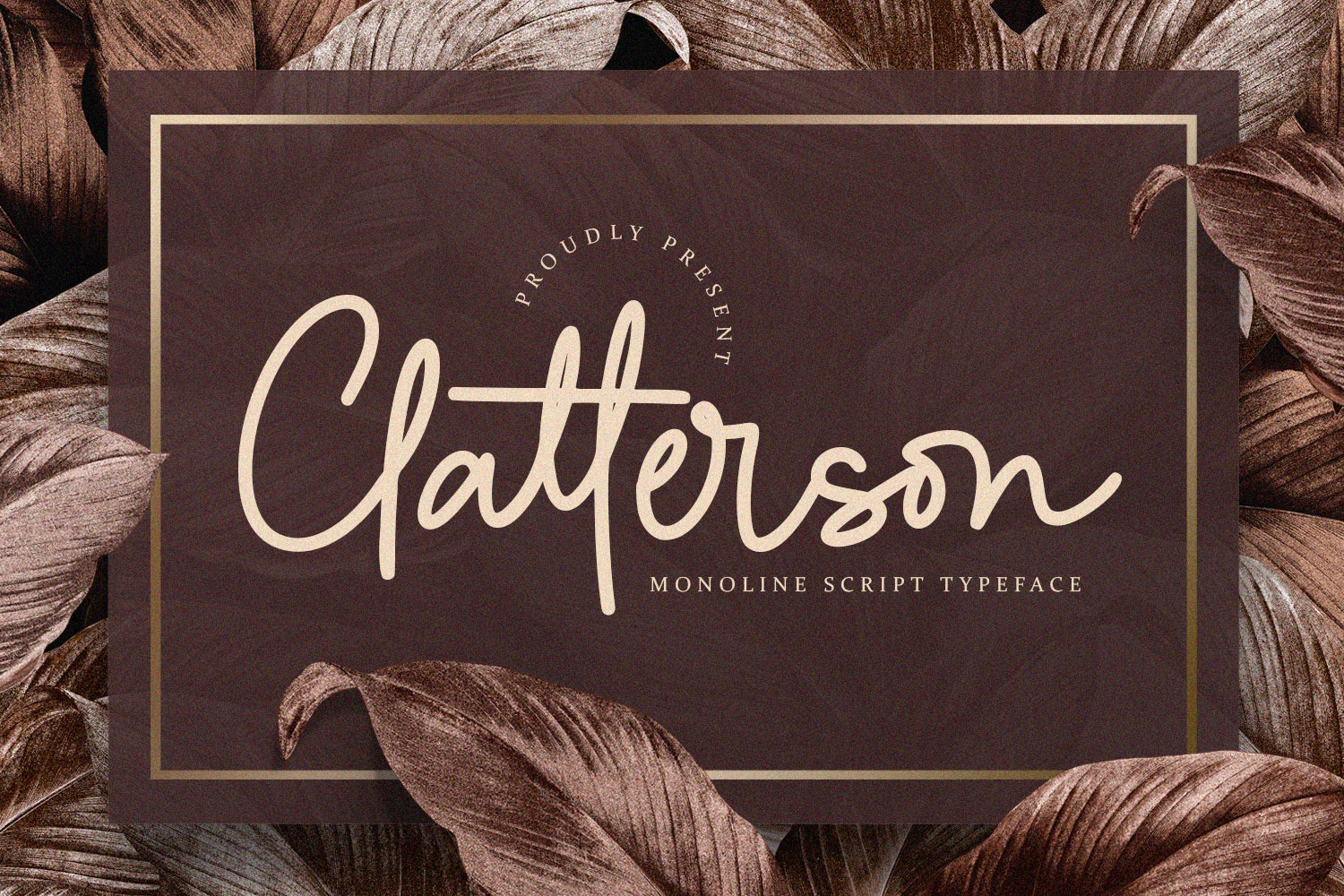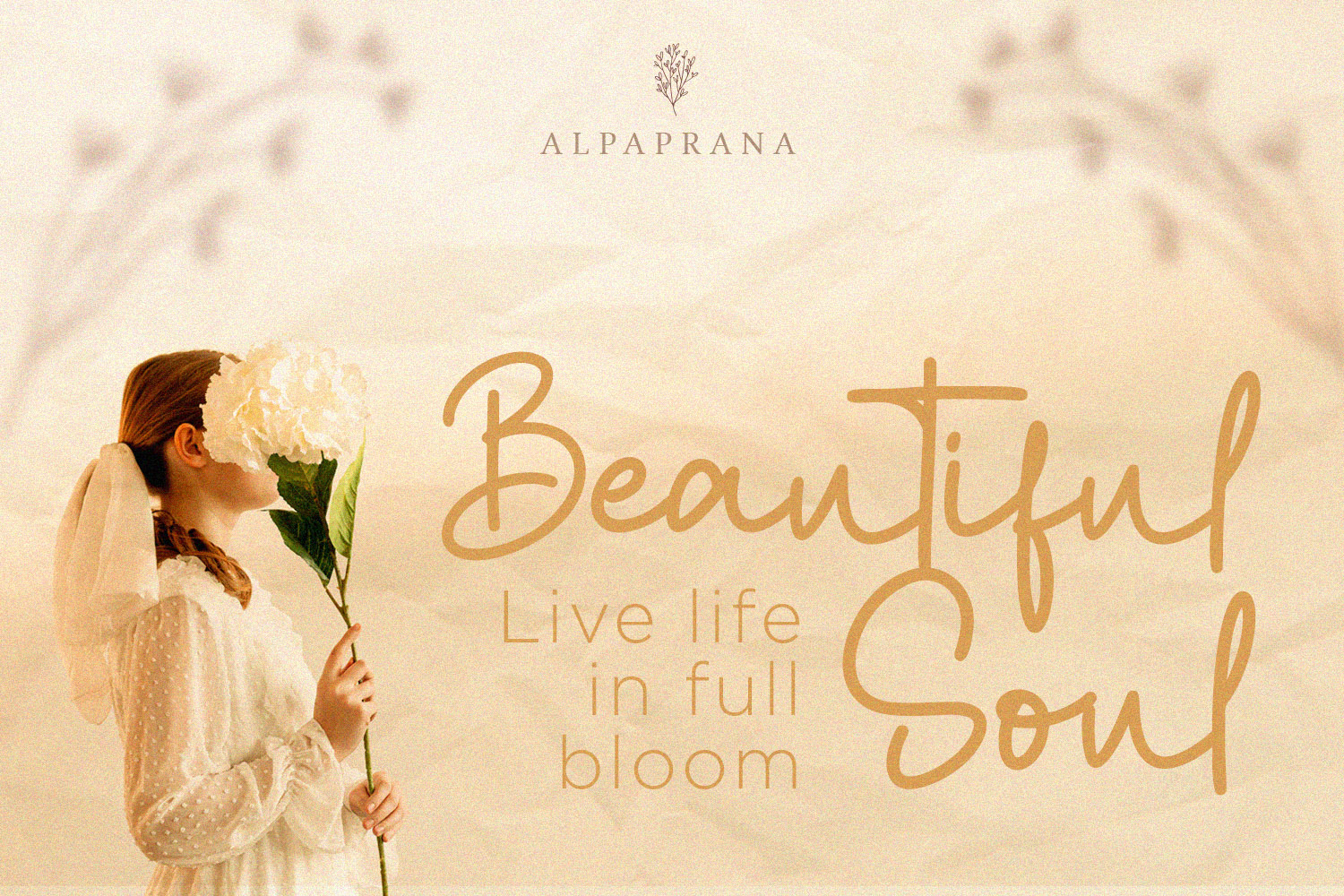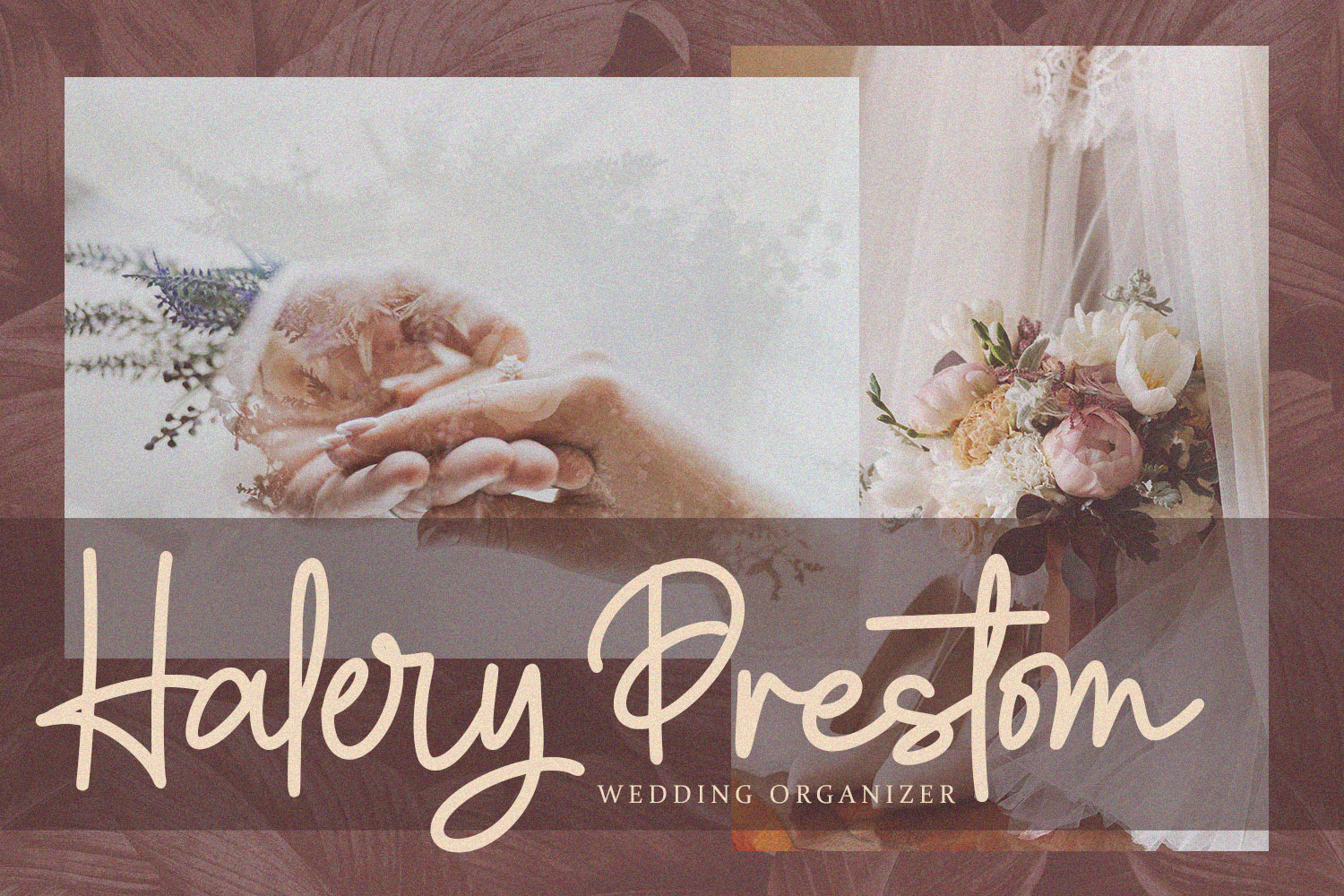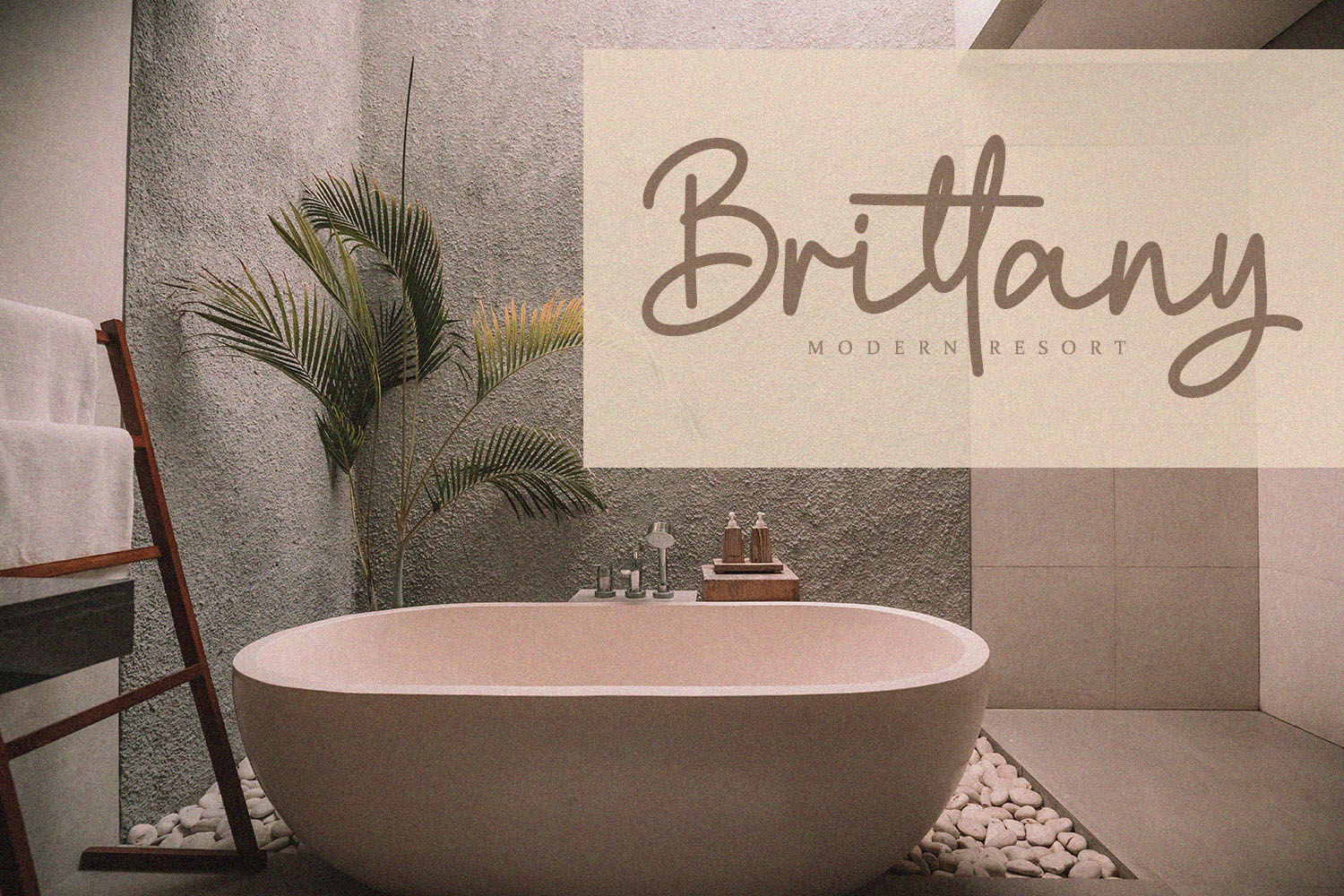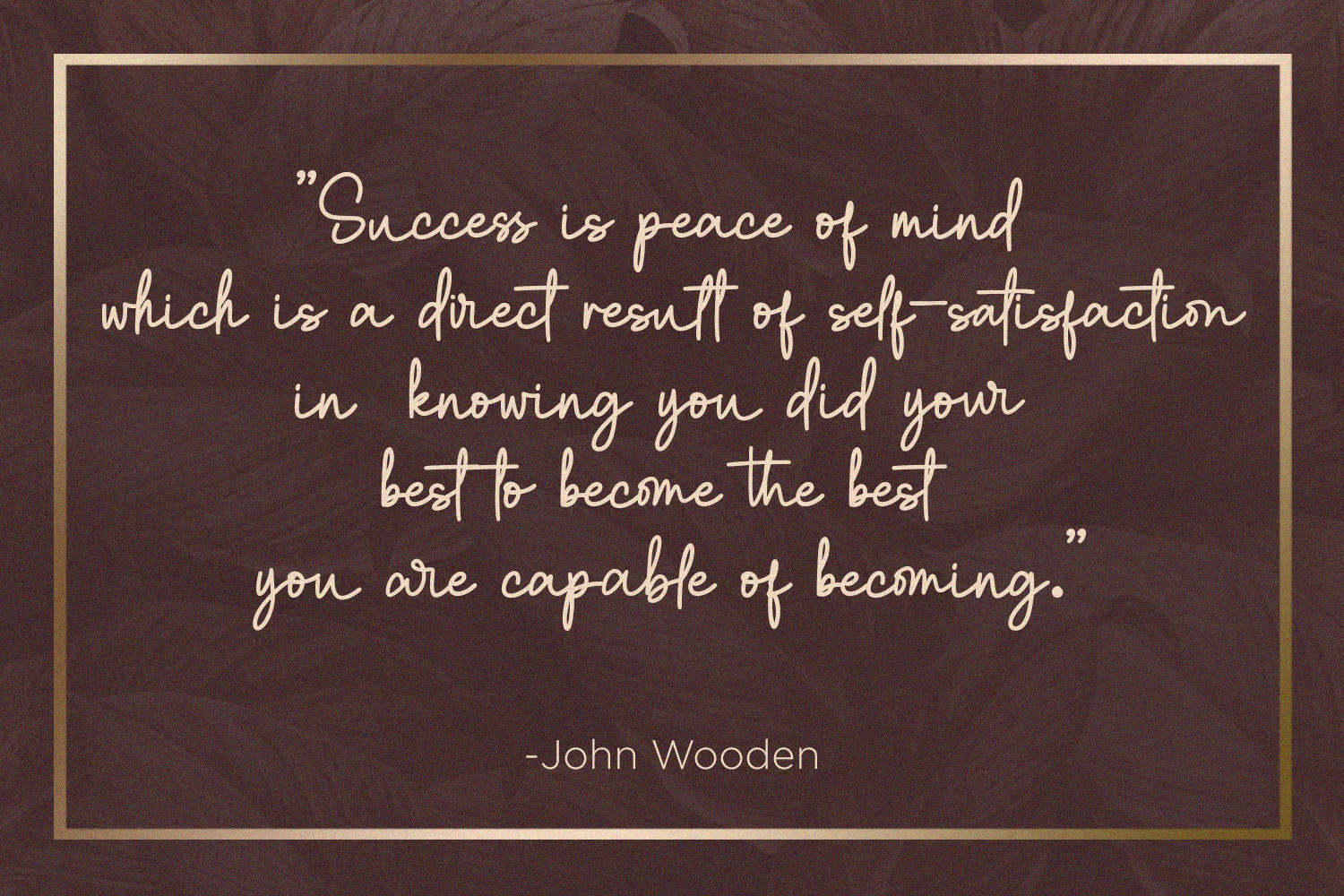
Clatterson Free Font
Clatterson Free Font is an interesting modern typeface with a calligraphic style. This font is very suitable for creating various projects that require a scripted handwritten font. You can use this font to create memorable romantic posters, wedding invitations, greeting cards, branding, flyers, t-shirt and pillow prints, and more. If you like it don’t forget to check out the full version.
Author: Alpaprana Studio